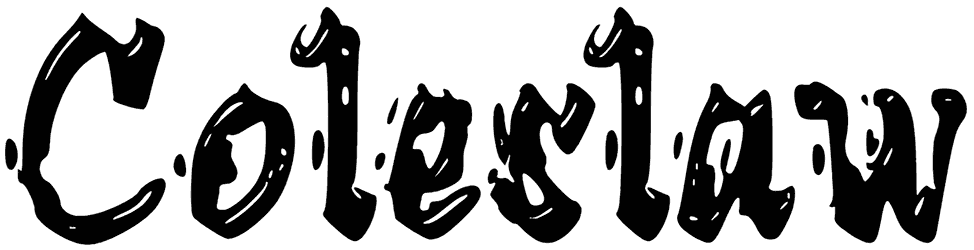
c Coleslaw Font
You can easily make your fans fall in love with the artistic vibe of your design with water-style words. This fire font, named c Coleslaw, is able to bring a modern and elegant face to your creative designs. For your projects such as flyers, illustrations, postcards, or many similar things, create a ravishing outward with c Coleslaw.